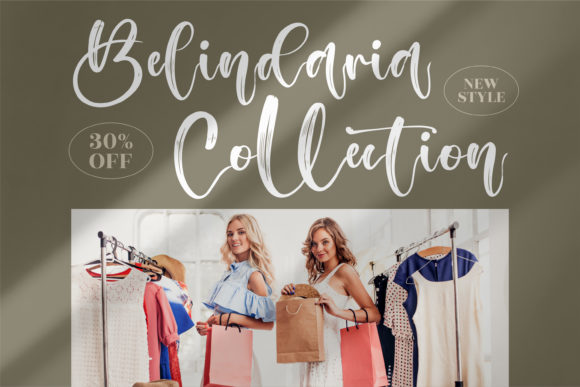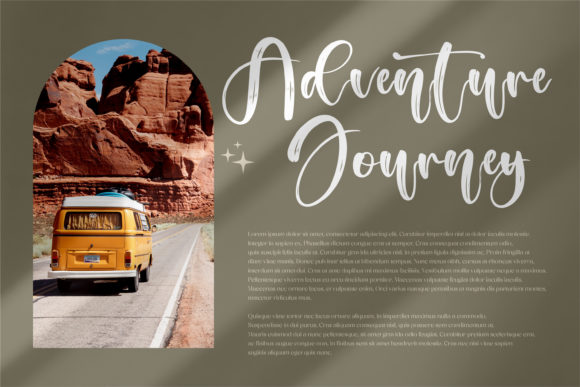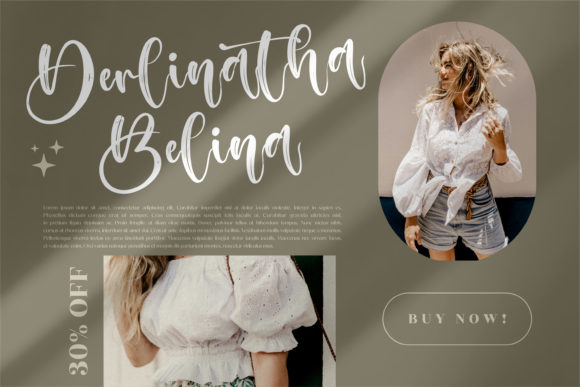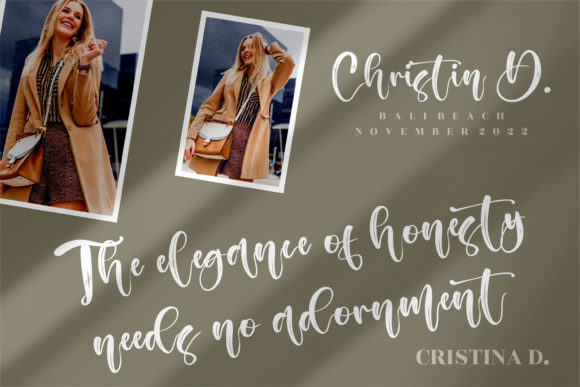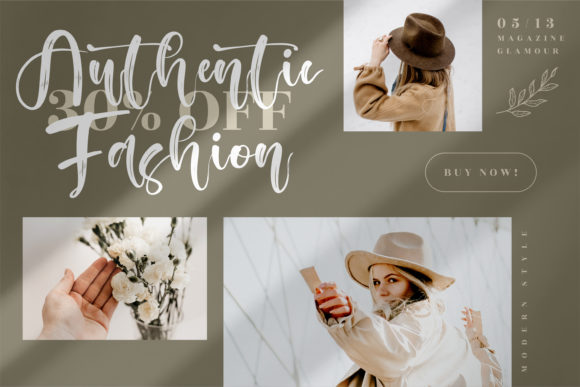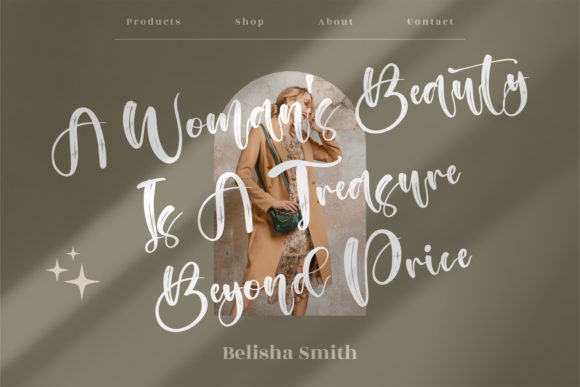
Introduction to Australia Beauty Font
Have you ever been brainstorming a creative project, only to hit a roadblock when it comes to choosing the perfect font? You know, that moment when everything feels just right, but something is missing – until you stumble upon the perfect design resource. For many designers, that moment came when they discovered the Australia Beauty Font.
This lovely script font features charming, playful characters that seem to dance along the baseline, making it the perfect addition to any creative project. With its high-quality design and transparent background, it’s a versatile tool that can elevate even the most mundane ideas into something truly special.
Whether you’re working on a free download or a paid design project, the Australia Beauty Font is an invaluable resource that’s sure to bring a touch of magic to your work.
Key Features of Australia Beauty Font
- High-quality design resource ideal for creative projects and professional use
- Designed with a unique, modern aesthetic inspired by Australian culture and beauty
- Includes a range of characters and glyphs, including international characters and symbols
Honest Review: Australia Beauty Font
I recently stumbled upon the Australia Beauty Font, and I must say it’s a great addition to any creative project. The high quality of this font is evident from the first glance, with its beautiful, elegant design that’s perfect for luxury brands.
- ✨ Beautiful, high-quality design that’s perfect for luxury brands.
- ⚠️ Limited character set, which may be a concern for designers who need a font with a wide range of characters.
- ⚠️ Not suitable for use in all languages, as it’s designed specifically for the English alphabet.
Overall, I’m impressed with the Australia Beauty Font. It’s a great design resource that’s perfect for luxury brands and creative projects. While it has some limitations, it’s definitely worth considering for your next project.
To get the most out of the Australia Beauty Font, use it with a transparent background to create a clean and modern design. Experiment with different font sizes and colors to add visual interest to your design.
The Australia Beauty Font is perfect for a variety of creative projects, including:
- Social media design